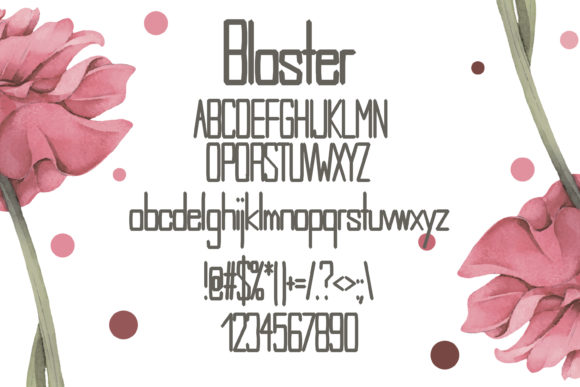
Introducing Blaster Font: The Ultimate Futuristic Display Font for Designers and Crafters
In the world of typography, a font can make or break a design. As a designer or crafter, you’re constantly on the lookout for the perfect font to elevate your project. Look no further than Blaster Font, a simple yet futuristic display font that’s taking the design world by storm.
What is Blaster Font?
Blaster Font is a modern, geometric display font that’s perfect for a wide range of designs. Its sleek lines and futuristic aesthetic make it an ideal choice for designers and crafters looking to add a touch of sophistication to their projects. Whether you’re working on a logo, a poster, or a digital graphic, Blaster Font is sure to impress.
Key Features of Blaster Font
- Geometric Shapes: Blaster Font features geometric shapes that give it a unique, futuristic look. The font’s clean lines and minimalist aesthetic make it perfect for designs that require a touch of modernity.
- Adaptability: One of the standout features of Blaster Font is its incredible adaptability. Whether you’re working on a bold, eye-catching design or a more subtle, understated project, Blaster Font can handle it all.
- Simple yet Impactful: Despite its simple design, Blaster Font packs a punch. Its bold lines and geometric shapes make it a font that’s hard to ignore, perfect for designers and crafters who want to make a statement.
Who is Blaster Font for?
Blaster Font is perfect for a wide range of designers and crafters, including:
- Graphic Designers: Whether you’re working on a logo, a poster, or a digital graphic, Blaster Font is a great choice for any design project that requires a touch of modernity.
- Crafters: If you’re a crafter looking for a font to use in your handmade projects, Blaster Font is a great option. Its simple yet impactful design makes it perfect for a wide range of crafts, from card making to scrapbooking.
- Web Designers: Blaster Font is also a great choice for web designers looking for a font to use on their website or in their digital projects. Its clean lines and geometric shapes make it perfect for digital designs.
How to Use Blaster Font
Using Blaster Font is easy. Here are a few tips to get you started:
- Pair it with Other Fonts: Blaster Font pairs well with other fonts, making it easy to create a unique and visually appealing design.
- Experiment with Colors: Blaster Font looks great in a wide range of colors, so don’t be afraid to experiment and find the perfect color for your design.
- Use it for Headings: Blaster Font is perfect for headings and titles, making it a great choice for designers and crafters looking to add a touch of modernity to their projects.
In conclusion, Blaster Font is a simple yet futuristic display font that’s perfect for designers and crafters looking to add a touch of modernity to their projects. Its geometric shapes, adaptability, and simple yet impactful design make it a great choice for a wide range of designs. Whether you’re a graphic designer, a crafter, or a web designer, Blaster Font is sure to impress.